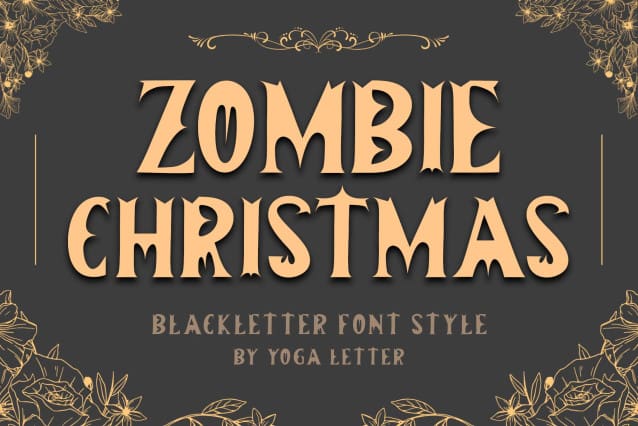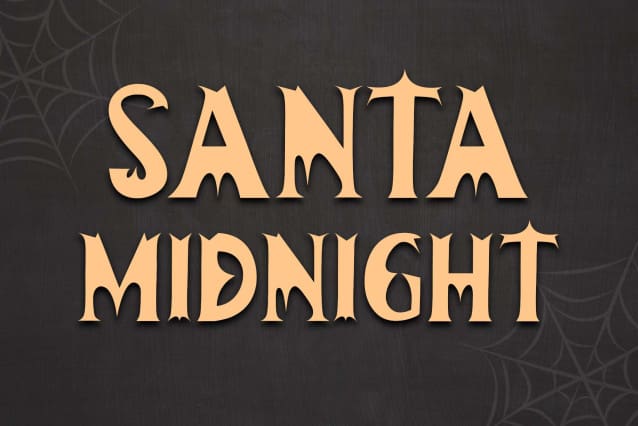
Zombie Christmas Font
Zombie Christmas Font is an elegant blackletter font. It comes with uppercase, lowercase, numbers, punctuation, and multilingual support. It is suitable for halloween, christmas, music concerts, banners, logos, stickers, posters, fall, invitations, branding, certificates, and more.